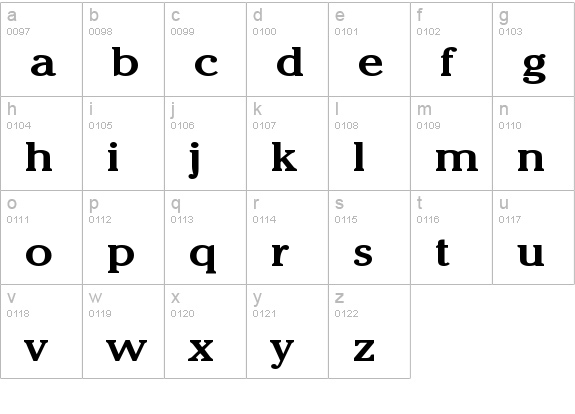
Chelsey Wide Bold is a strong, high-contrast, extended-width variant in the Chelsey typeface family \xE2\x80\x94 well suited to headlines, attention-grabbing titles, and strong calls-to-action.
Chelsey Wide Bold font is a modern and stylish typeface that exudes confidence and sophistication. With its wide and bold design, this font commands attention and makes a statement. Perfect for headlines, titles, and branding projects, Chelsey Wide Bold adds a touch of elegance to any design. What's even better is that Chelsey Wide Bold font is available for free download at FontsMarket.com. This means you can easily access and use this stunning font in your projects without any cost. Don't miss out on the opportunity to elevate your designs with the sleek and striking Chelsey Wide Bold font. Download it now and take your creations to the next level!